How I Picked These Premium Graffiti Fonts
The best premium graffiti fonts do more than lean a few letters, add a rough texture, and call the result โurban.โ They suggest a physical process. You can almost imagine the marker changing direction, the brush running out of paint, or the spray can lingering long enough to create a heavier edge.
That believable irregularity is what separates hand-painted graffiti lettering from a generic distressed display font.
For this roundup, I looked for fonts with uneven baselines, changing stroke widths, loose joins, imperfect outlines, dry-brush texture, drips, and letterforms that feel drawn rather than mechanically assembled. I also considered readability because a font can look authentic at poster size and fall apart completely on a small shirt graphic or social thumbnail.
Creative Fabrica currently lists more than a thousand products under its graffiti-related categories, so there is no shortage of options. The harder job is finding fonts that retain a human, paint-made character instead of looking like a standard bold typeface with damage applied afterward.
- Best marker-style pick: Street Writing
- Best personal handstyle: Edward
- Best rough paint texture: Dirty Stroke
- Best for posters and apparel: Bombskid
Best Marker and Handstyle Graffiti Fonts
1. Edward
Edward has the kind of loose construction I associate with quick marker lettering. Its appeal is not pristine geometry. It is the sense that the letters were laid down rapidly, with the writer making decisions in motion.
I like this direction for short names, sticker graphics, creator logos, skate-inspired labels, and social artwork that needs a personal signature without becoming formal calligraphy. The irregularity supplies attitude, but it is controlled enough to avoid looking completely chaotic.
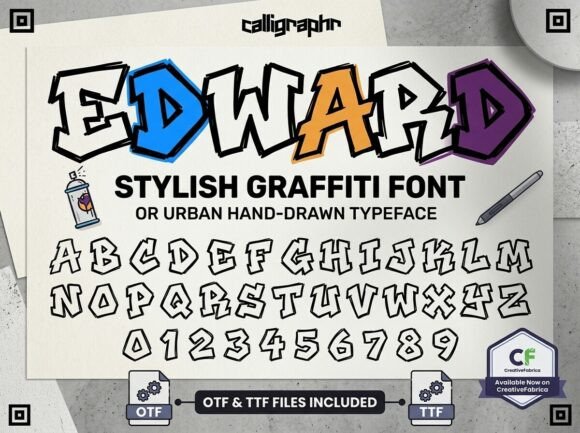
I would keep the wording short. A marker-style graffiti font is strongest when the viewer can absorb the entire shape of a word at once. Long paragraphs would flatten its rhythm and make the irregular spacing more tiring.
Best for: Creator marks, stickers, skate graphics
Key features: Marker-like strokes, loose baseline, informal handstyle
2. Street Writing
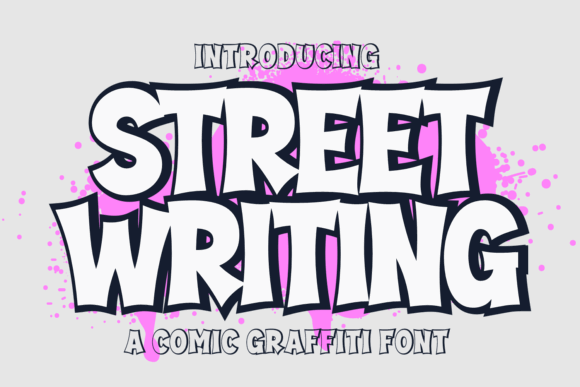
Street Writing is one of the more direct choices in this group. The name matches its visual purpose: casual lettering that feels written rather than typeset.
My take is that this style suits projects where you want the energy of tagging without the dense structure of wildstyle graffiti. It can bring a spontaneous edge to event posters, youth-oriented packaging, playlist covers, and streetwear graphics while leaving enough recognizable letter anatomy for the message to land quickly.
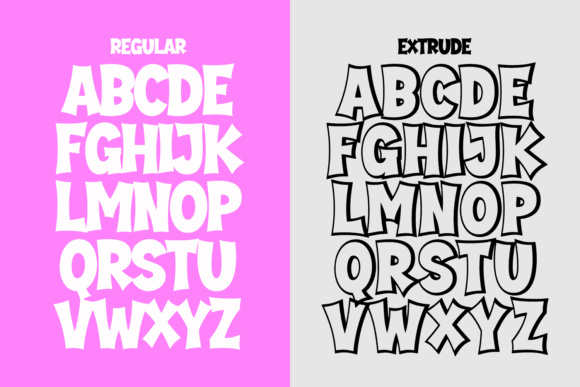
Try giving it room. Tight tracking can make an already energetic handstyle look cramped. Slightly looser spacing also preserves the impression that each character was written as part of a continuous gesture.
Best for: Event titles, streetwear, playlist covers
Key features: Handwritten construction, quick movement, casual urban tone
3. Lazy Daze
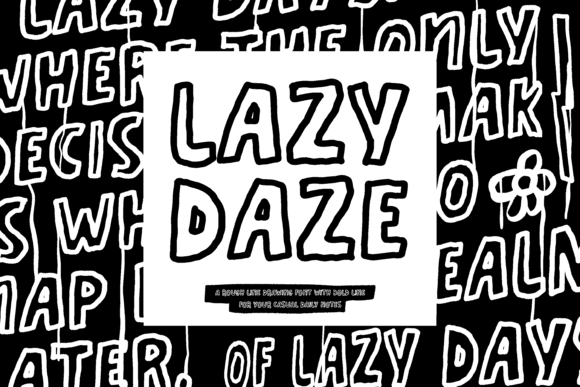
Lazy Daze feels relaxed rather than aggressive. That distinction matters because graffiti typography does not always need to shout. Some projects need a drawn-by-hand street influence with softer movement and less visual confrontation.
I would reach for this kind of font for lifestyle apparel, summer graphics, indie branding, casual food packaging, or a music project with a laid-back tone. The looser character also pairs more comfortably with illustrations than a heavily outlined blockbuster font.
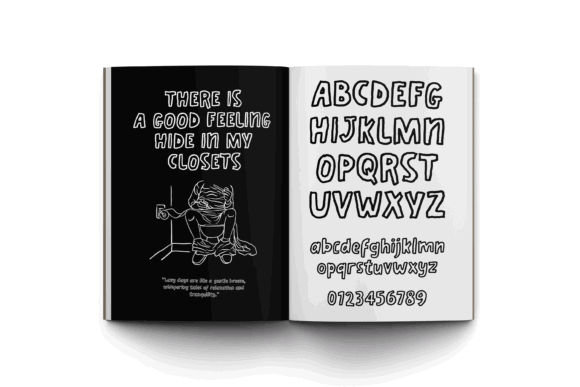
The main risk is making the surrounding design too soft. A clean geometric sans serif, a rigid border, or a compact block of supporting text can give Lazy Daze the contrast it needs.
Best for: Lifestyle apparel, indie branding, relaxed posters
Key features: Loose rhythm, casual letterforms, softer graffiti mood
4. Stayard and Rob
Stayard and Rob offers a more crafted handstyle. It still carries the uneven movement associated with handwritten graffiti, but it can sit in a composition as a deliberate headline rather than a background scribble.
I like it for designs that need personality without losing all structure: boutique streetwear, independent labels, album titles, promotional cards, and small-run merchandise. Its handmade character can also take some pressure off the rest of the layout. You do not need multiple textures and effects when the letters already supply movement.
Before committing, check repeated characters in your actual phrase. When a handwritten font uses identical forms for every repeated letter, the digital pattern can become more noticeable.
Can graffiti fonts be used for commercial products?
They can when the fontโs current license permits your intended use. Check the license attached to the individual download and confirm any conditions covering print-on-demand products, editable templates, logos, or digital items.